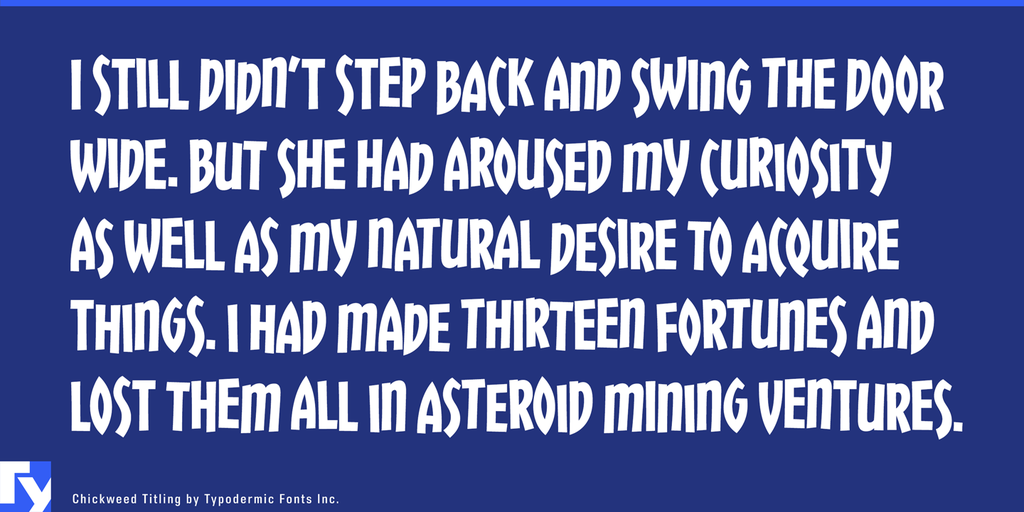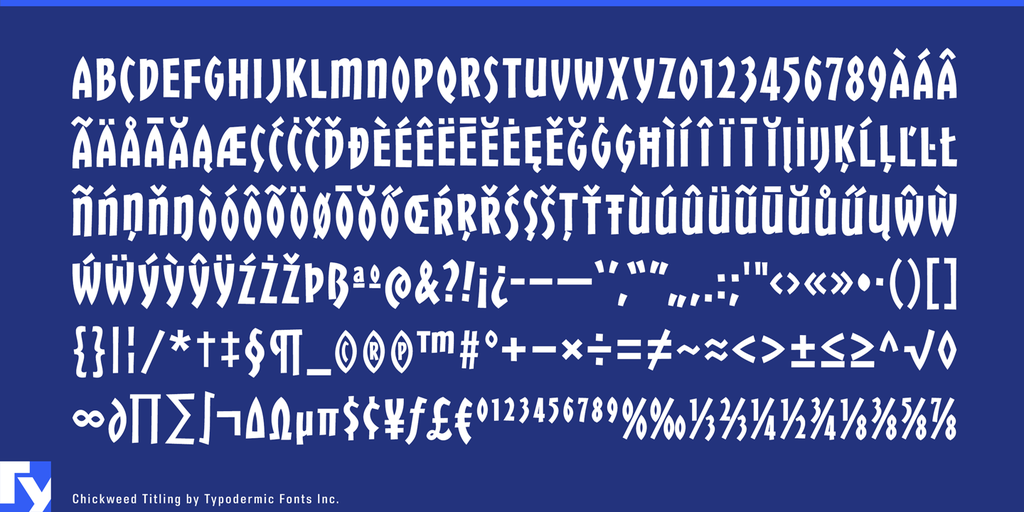
Chickweed Titling Font
Chickweed Titling is a compact all-caps display face with energetic curves, playful strokes, and automatic letter variations that produce a lively hand-painted rhythm. It suits posters, logos, indie games, event graphics, packaging labels, signage, and editorial headlines that benefit from controlled irregularity.